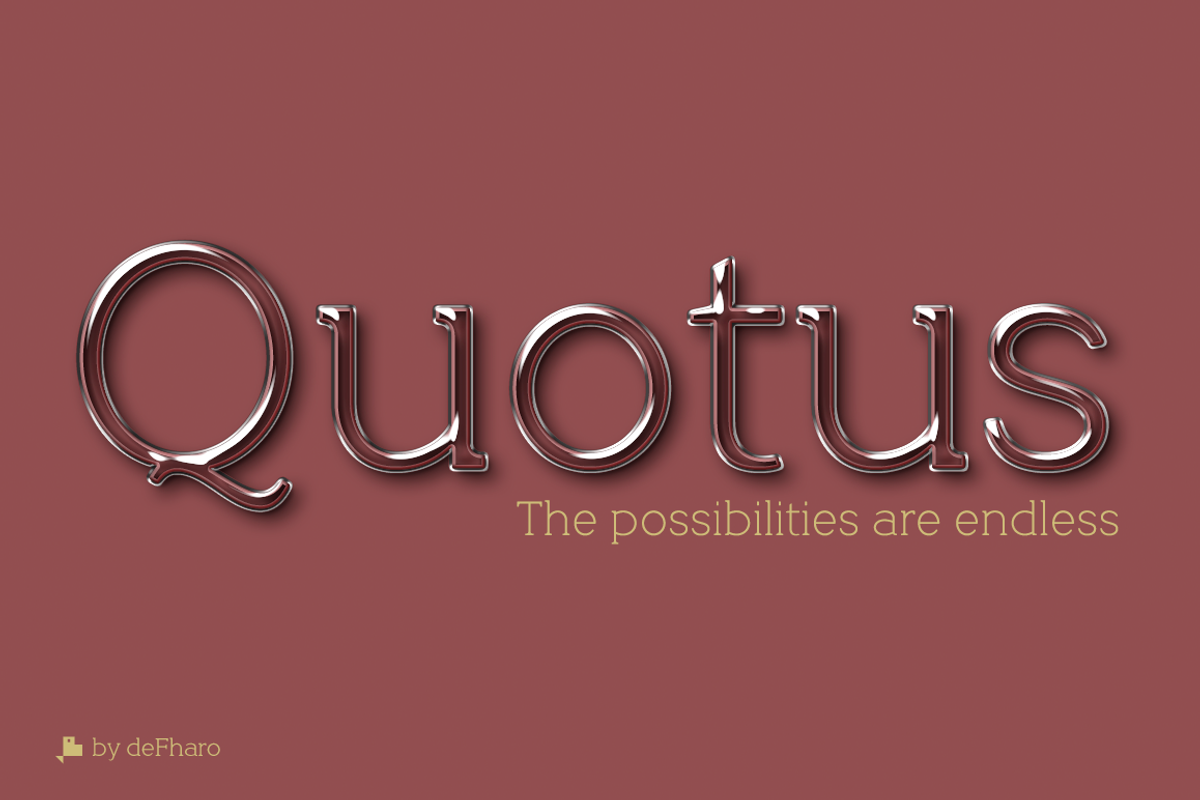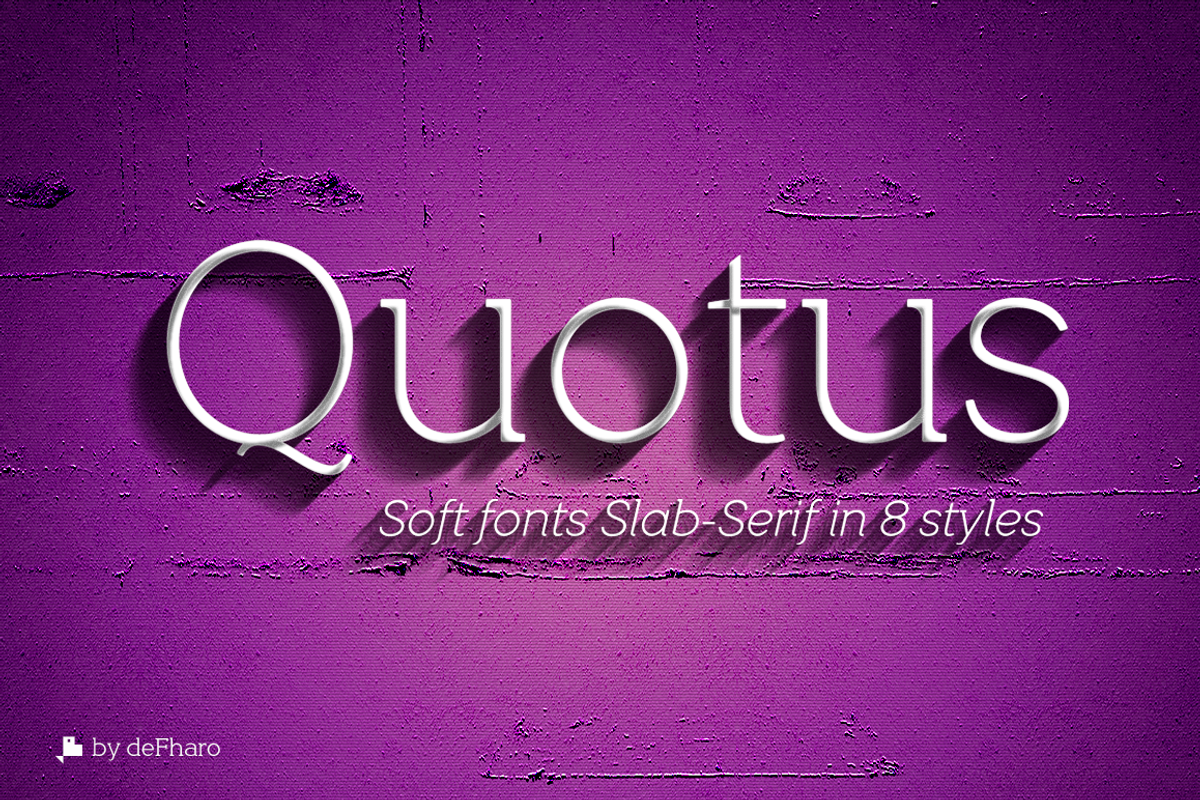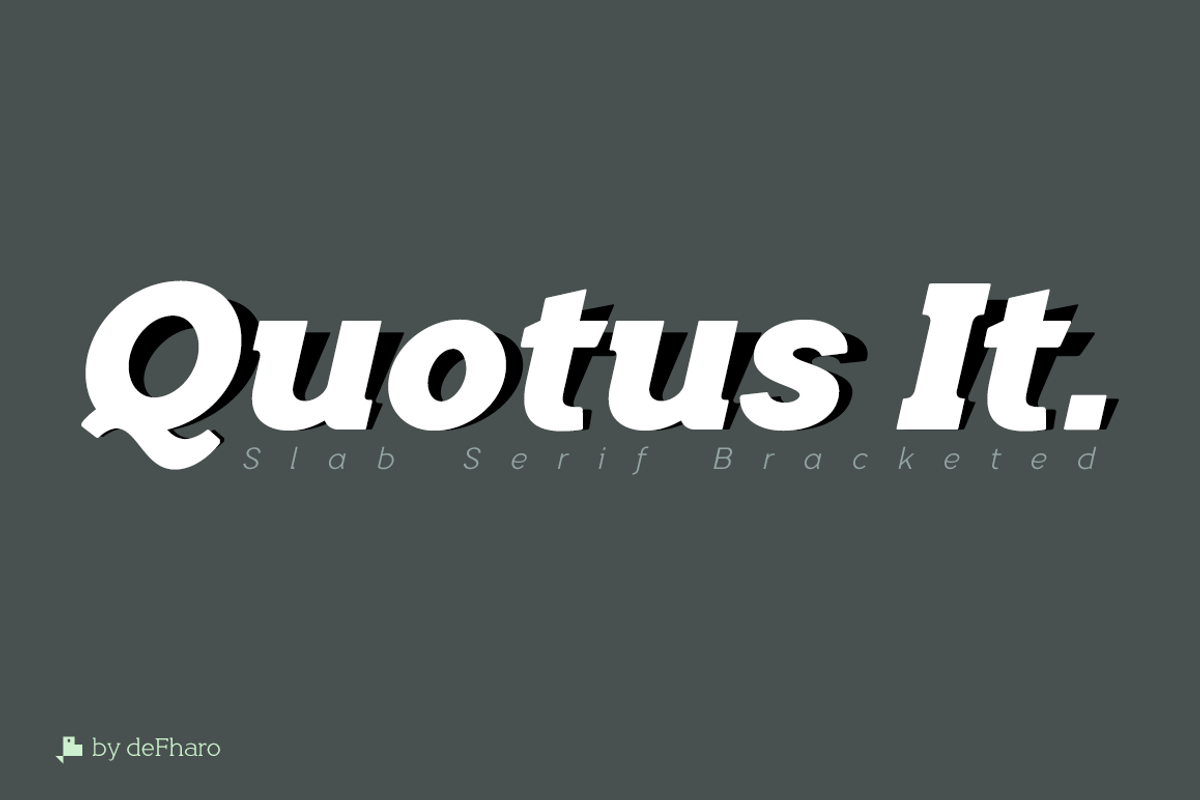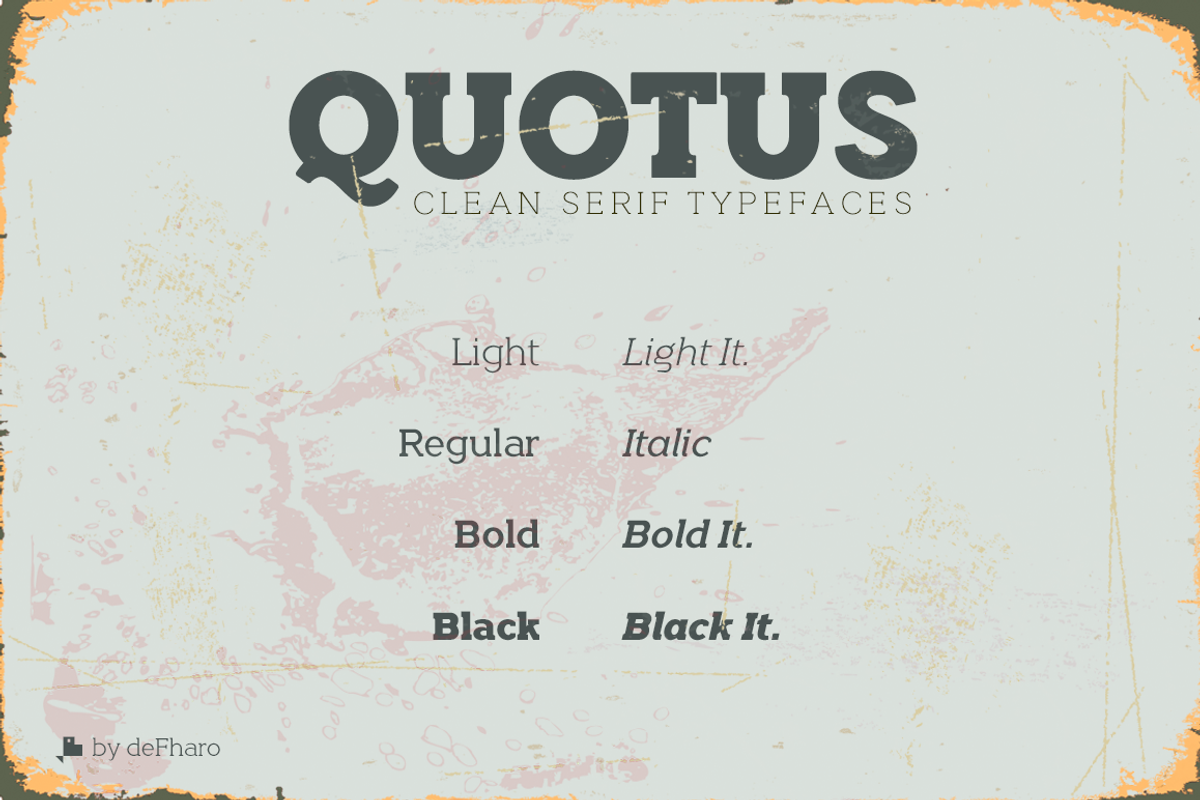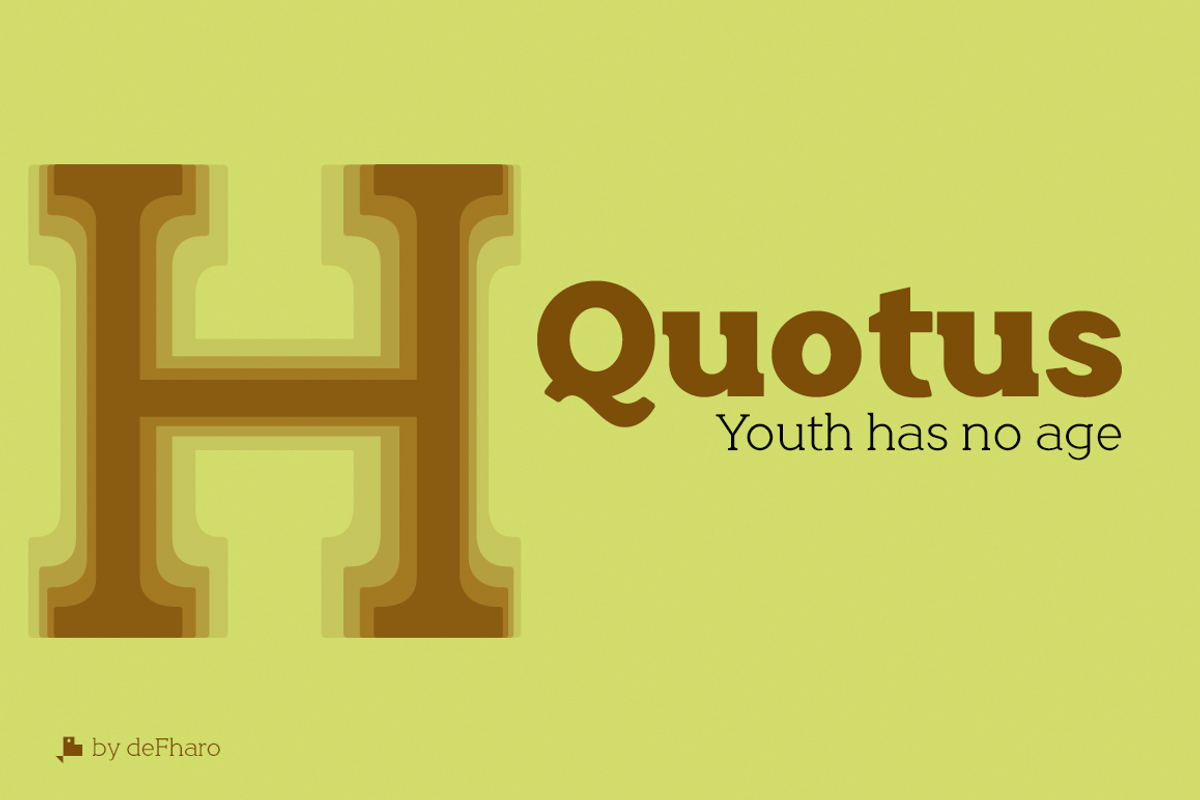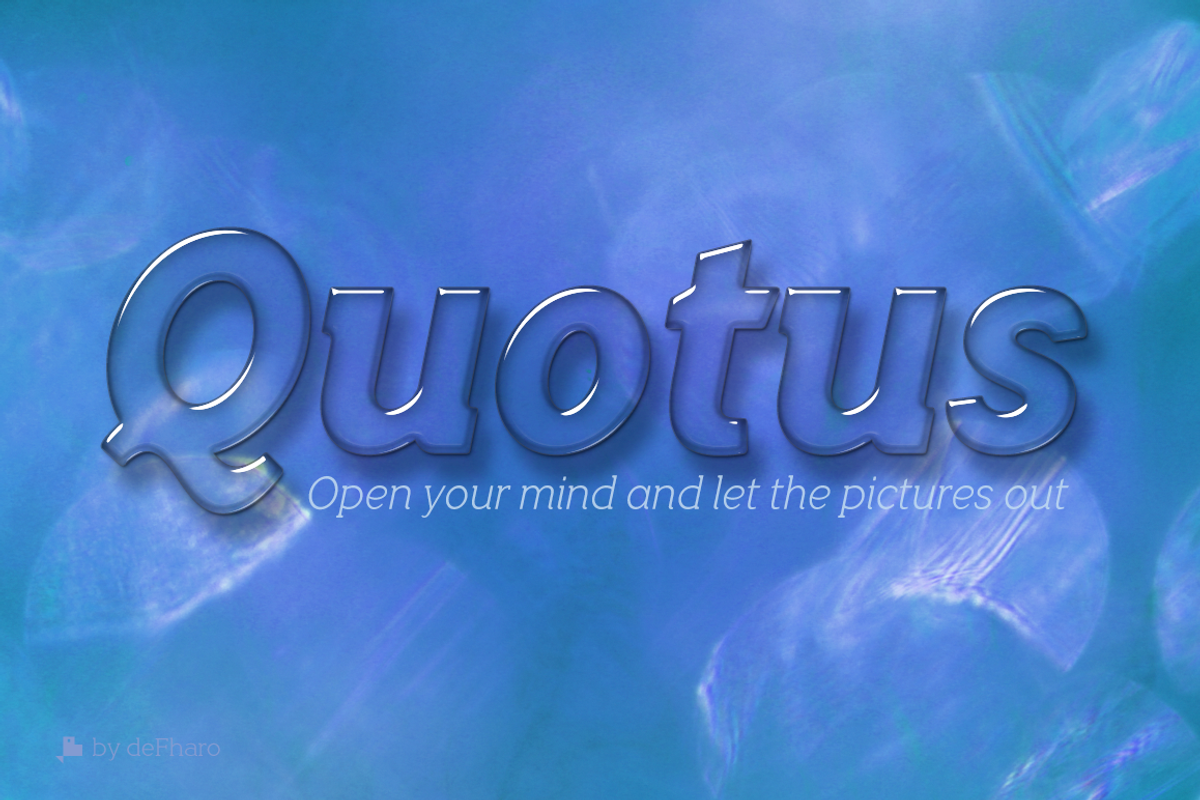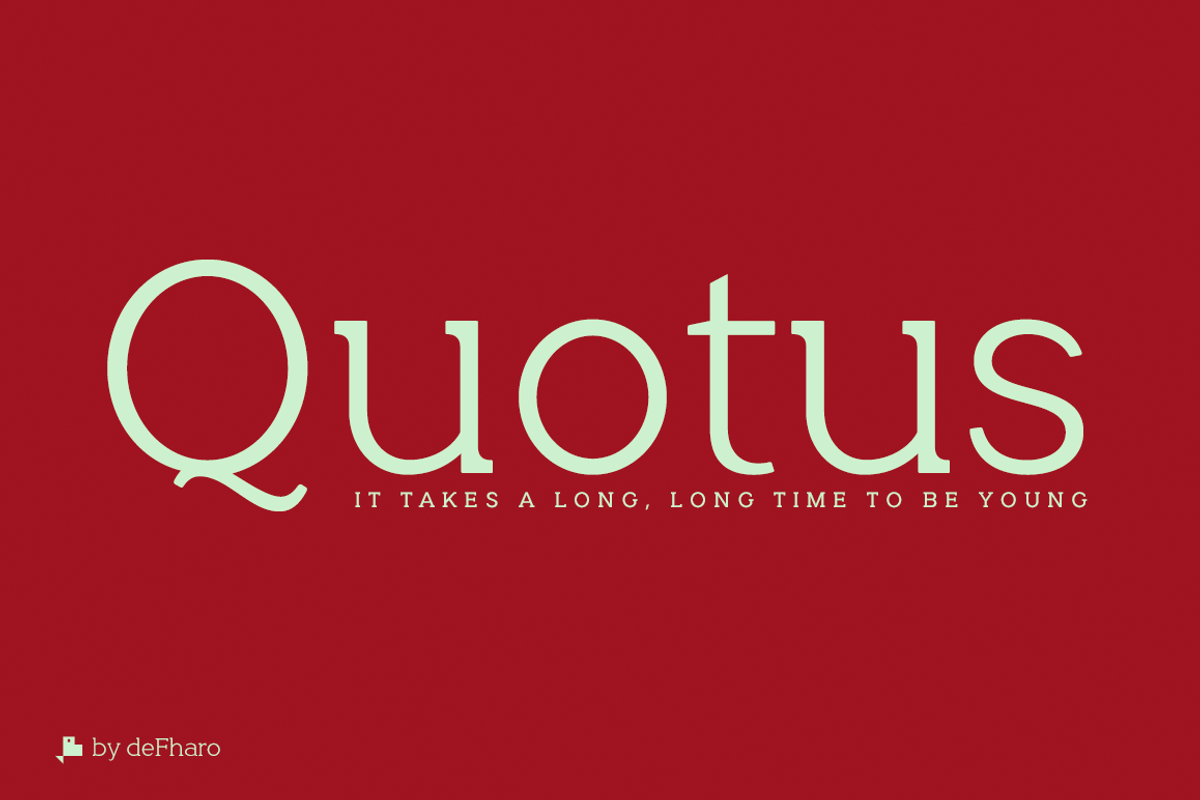
Quotus Slab Bracketed -8 fonts-
Quotus is a new typographic family with slab serifs bracketed. There are 8 styles (Light, Regular, Bold, Black + Italics) The metric and configuration of the kerning has been exhaustive for maximum balance and readability. Italic versions have their own stylized lowercase letters with an inclination of 13 degrees. All fonts have advanced Open Type functions and the Bitcoin symbol (b#)
Light, Regular, Bold & Black + True Italics (8 fonts)
OpenType Features: Inferiors, Alternate Annotation Forms, All Alternates, Additional languages, Superscript, Scientific Inferiors, Localized Forms, Superiors, Kerning, Numerators, Capital Spacing, Historical Ligatures, Slashed Zero, Denominators, Discretionary Ligatures, Superior letters, Subscript, Standard Ligatures, Extended Fractions, Historical Forms, Fractions, Ordinals, Oldstyle Figures.